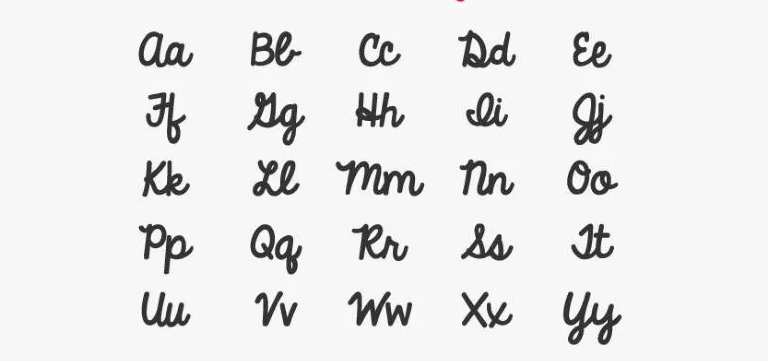
Sanrio Fonts: Introduction
Sanrio Fonts influence the brand identity as well, and even though they are usually not mentioned as the characters can, they still have their importance. Japanese company Sanrio, creator of these iconic characters as Hello Kitty, My Melody, Kuromi, and Cinnamoroll, has been making people around the world happy with its unbeatably cute items. However, all the values that Sanrio offers lie in the characters and their backstories; the importance of typography carried in its branding, packaging, and merchandise cannot be overlooked. These fonts incorporate the aesthetics of the Japanese idea of kawaii or cute by making the process of being a fan warm, friendly, and relatable around the world.
Sanrio Font
Features of Sanrio Fonts
1. Rounded and Soft Edges
Sanrio fonts often feature smooth, rounded edges, giving them a friendly and approachable feel. This characteristic reflects the gentleness and warmth associated with the brand’s characters.
1. Playful and Whimsical Style
Most of Sanrio’s fonts are cute, with large and grossed shapes and additional accents that reflect the concept of fun and joy.
1. Handwritten and a Personal touch
Carelessly written fonts are often used to make a graphic look as natural as handwriting. This style makes the text informal, as if the characters themselves have written what’s in the book.
1. Custom Character-Based Typography
Provides a new approach to type design that is optimized for specific characters or messages. Every Sanrio character would come along with its own font or style in the branding of the character. For instance, Hello Kitty’s typography is playful and monumental, while My Melody’s typography is usually script-like.
1. Versatile and Adaptive
However, there is a certain playfulness in the fonts of all Sanrio products, which clearly do not restrict themselves to only the kids’ genre. They fit perfectly well for various purposes ranging from merchandise encasing to animation and multimedia.
Examples of Fonts Inspired by Sanrio
The following fonts are identified as font lookalikes to Sanrio: If you’re looking to replicate Sanrio’s aesthetic in your projects, here are some font styles that embody the kawaii essence:
1. Bubble Fonts
Fonts like “Baloo” or “VAG Rounded” feature soft, rounded letters that resemble the playful typography seen in Hello Kitty’s branding.
2. Cute Script Fonts
Handwritten-style fonts such as “KG Happy” or “Luna” add a whimsical and personal touch, perfect for characters like My Melody or Little Twin Stars.
3. Retro Display Fonts
Sanrio has a retro charm that can be emulated with vintage-inspired fonts like “Cherry Swash” or “Pacifico.” These fonts bring a nostalgic feel to designs.
4. Minimalistic Sans-Serif Fonts
Fonts like “Nunito” or “Poppins” are ideal for creating a clean yet adorable look. These are often used in Sanrio’s digital applications and modern merchandise.
5. Custom Hand-Drawn Fonts
For a truly authentic Sanrio-inspired aesthetic, you can create custom hand-drawn fonts. These are particularly effective for capturing the uniqueness of each character’s personality.
How to Use Sanrio Fonts in Design
How to Use the Fonts in the Design Process: Sanrio fonts can include the cheerful, happy, nostalgic emotions in your design. Here’s how to effectively use them in your projects:
1. Combine Fonts with the Opposite colors
These fonts are perfect when combined with cute and vivid pastel colors such as baby pink, light purple, sky blue, and jade. These colors are more frankly kawaii, and these colors give a balance to kawaii design.
1. Incorporate Playful Elements
Place additional ornaments such as hearts, stars, or bows, to augment the look of the company, similar to what Sanrio creates. All these details can be applied to the type itself or act as accents.
1. Use in Brand Packaging
Sanrio fonts fill the need for packaging designs of a product that must convey a jovial or friendly image. Priority targets them at the juveniles or fans of kawaii culture, which makes them attractive to niche products.
1. Chat Bidding, Parties, and Birth Announcements
Sanrio fonts are great to use when making cute invitations for parties, greeting cards, or message bubbles for electronic invitations. They bring humor and fun to your message.
1. Bring Characters to Life
When you are using the font for work relating to characters, make sure that the font has the same personality as the character. For example, if you’re creating a comic show, you should use bold, bubbly fonts for the loose characters and delicate script fonts for the sweet characters.
Conclusion: Sanrio Fonts
Sanrio Font can scarcely take the center stage; however, it is an indispensable part of the Sanrio brand. Its round shapes, eccentric features, and cutesy drawings, which are most of the time representative of the specific character traits of the characters, are magical when partnered with their mission to bring joy and friendship by means of impossibly good design. To a designer who wants to include some aspects of kawaii in their design and to a Sanrio fan who wishes to make something related to this adorable universe, playing with Sanrio typography can make projects shine and the day of the viewer become sunnier. Applying this font not only makes your design have that genuine Sanrio look and feel, but you also capture the zeitgeist of kawaii, which is being cute, creative, and heartfelt. Thus, check out your opportunities, make your ideas real, and be astonished at the power of Sanrio Font.